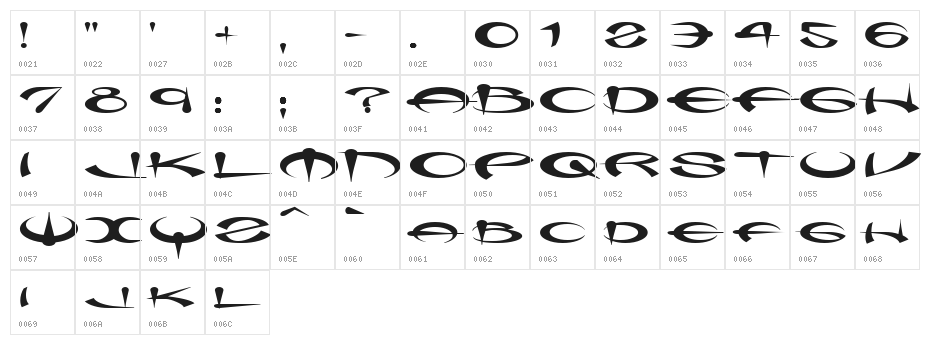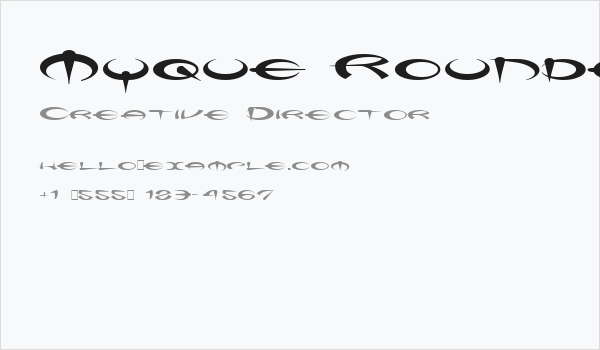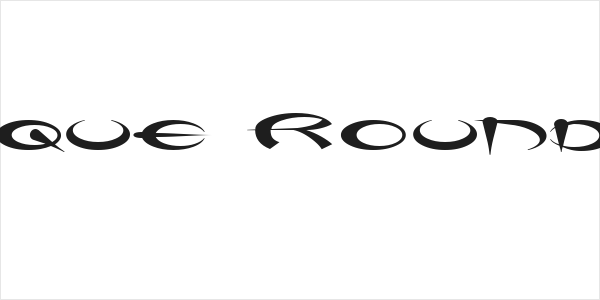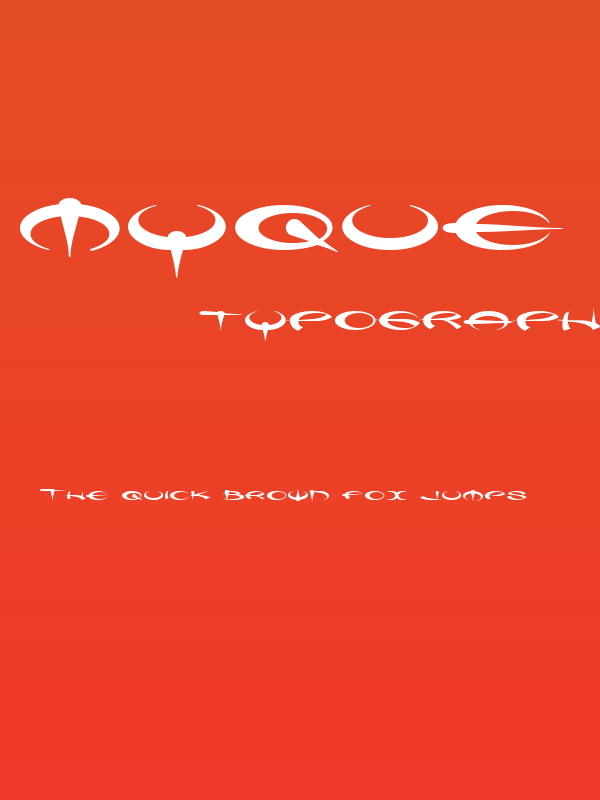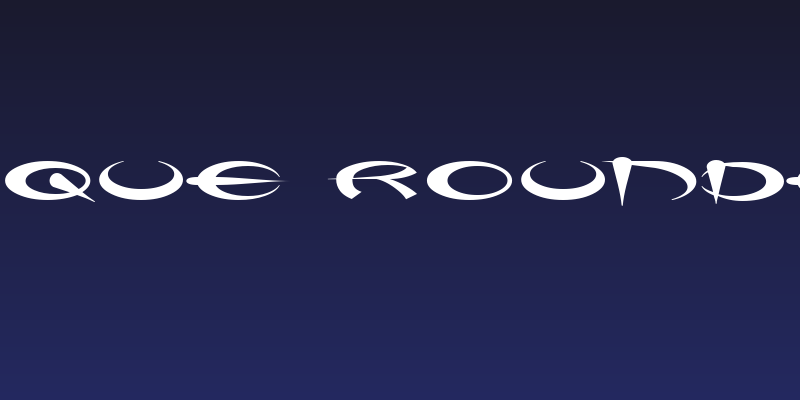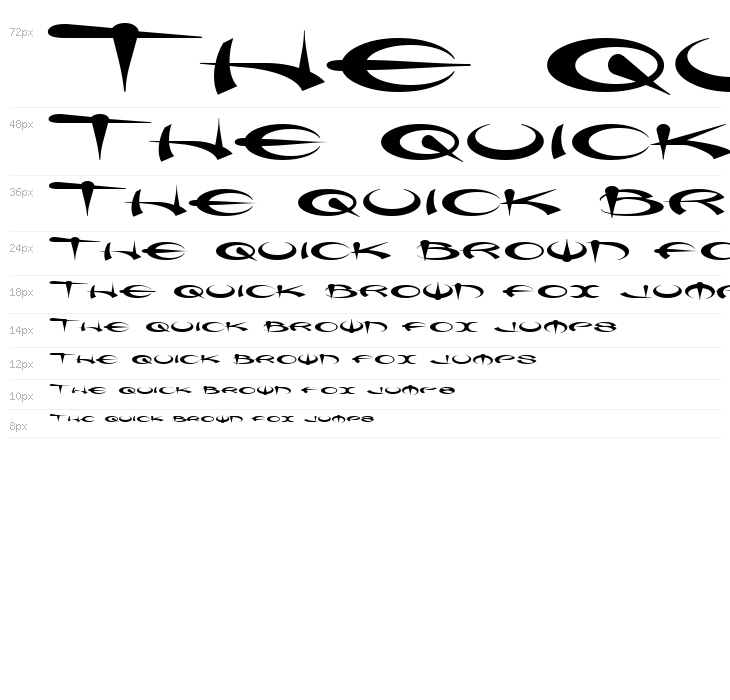
Myque Rounded Font
Myque Rounded Description
This font features a unique and artistic design with a futuristic flair. The characters are bold and rounded, with sharp, pointed accents that give them a dynamic and edgy appearance. The overall style is decorative, making it ideal for creative projects that require a distinctive and eye-catching typeface. The uppercase and lowercase letters maintain a consistent style, while the numbers and special characters complement the overall aesthetic. The font's boldness and unique shapes make it stand out, perfect for designs that aim to make a strong visual impact.
| Overall Style | Futuristic, Decorative |
| Proposed Projects | Ideal for sci-fi themed posters, album covers, video game graphics, and branding that requires a modern and striking look. |